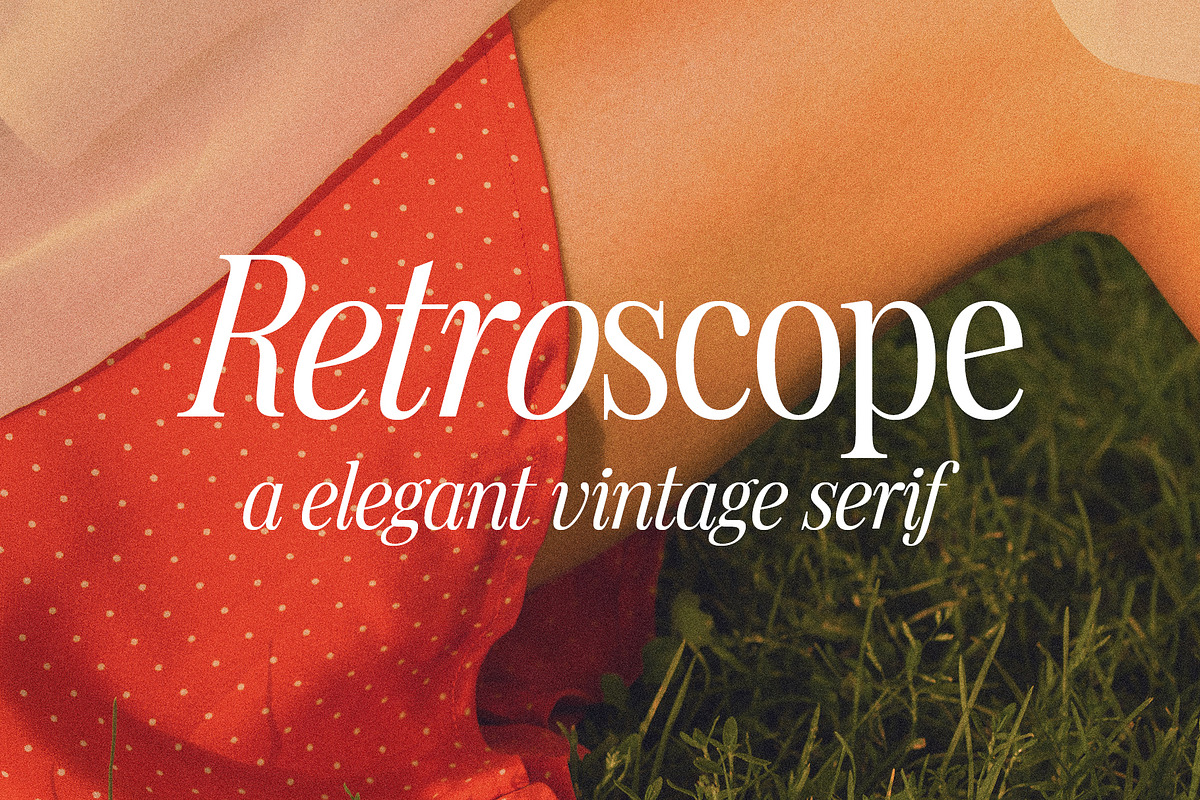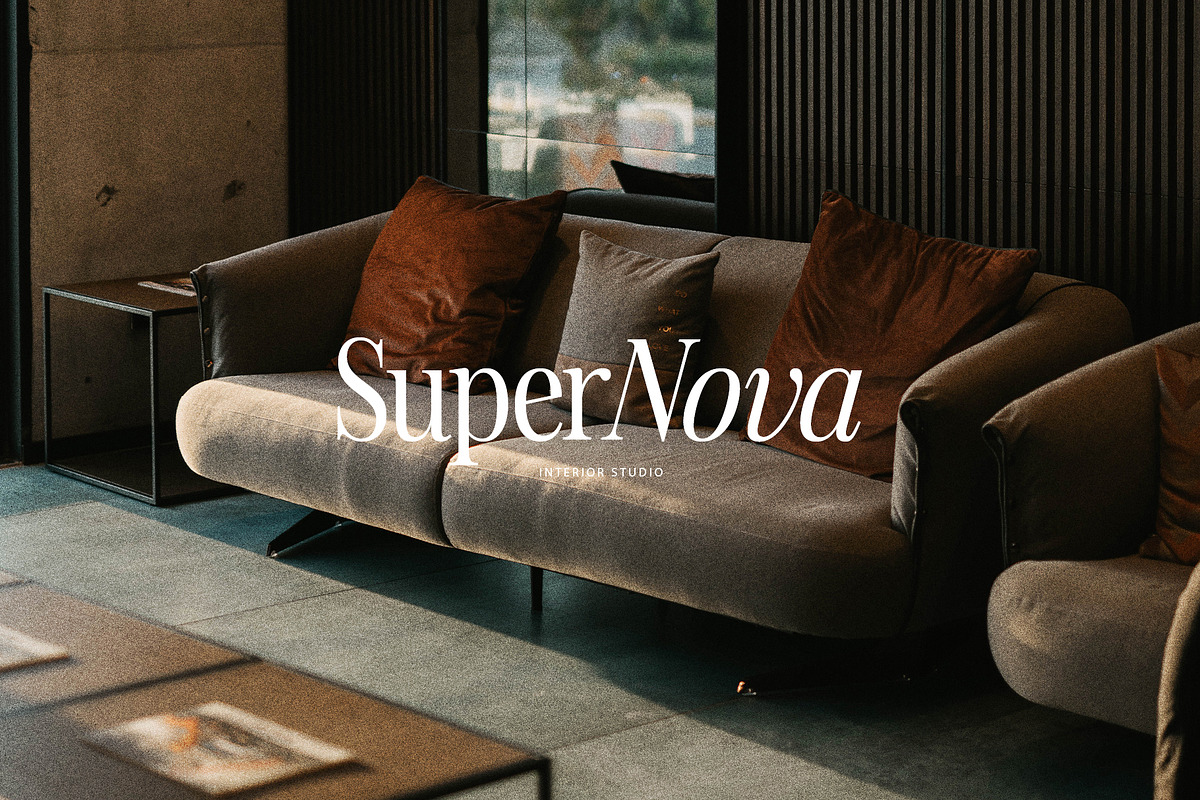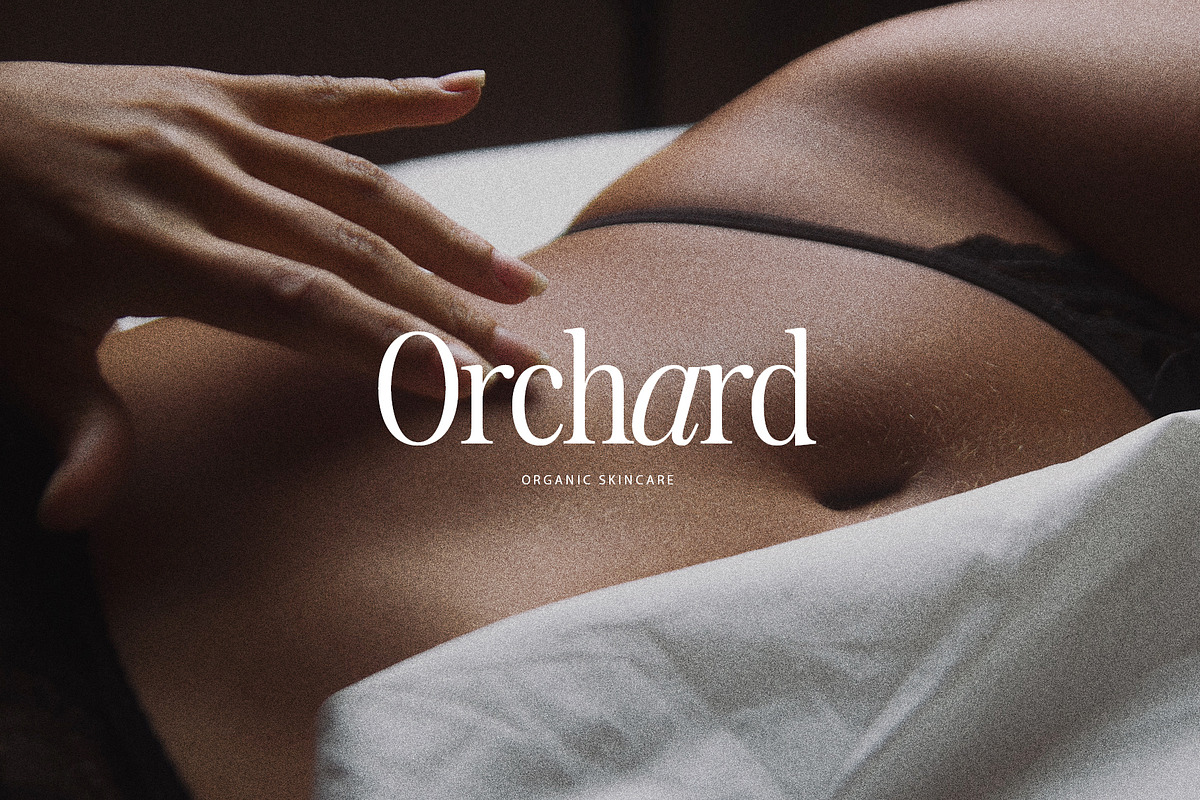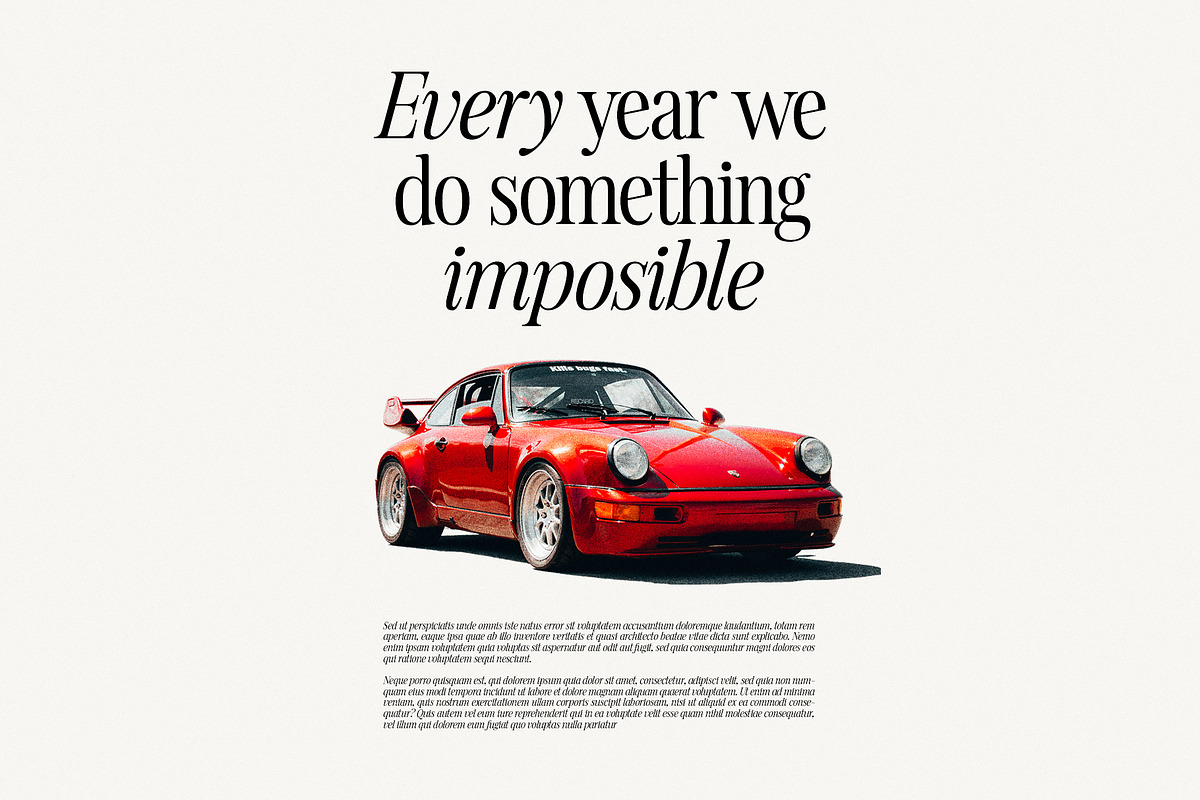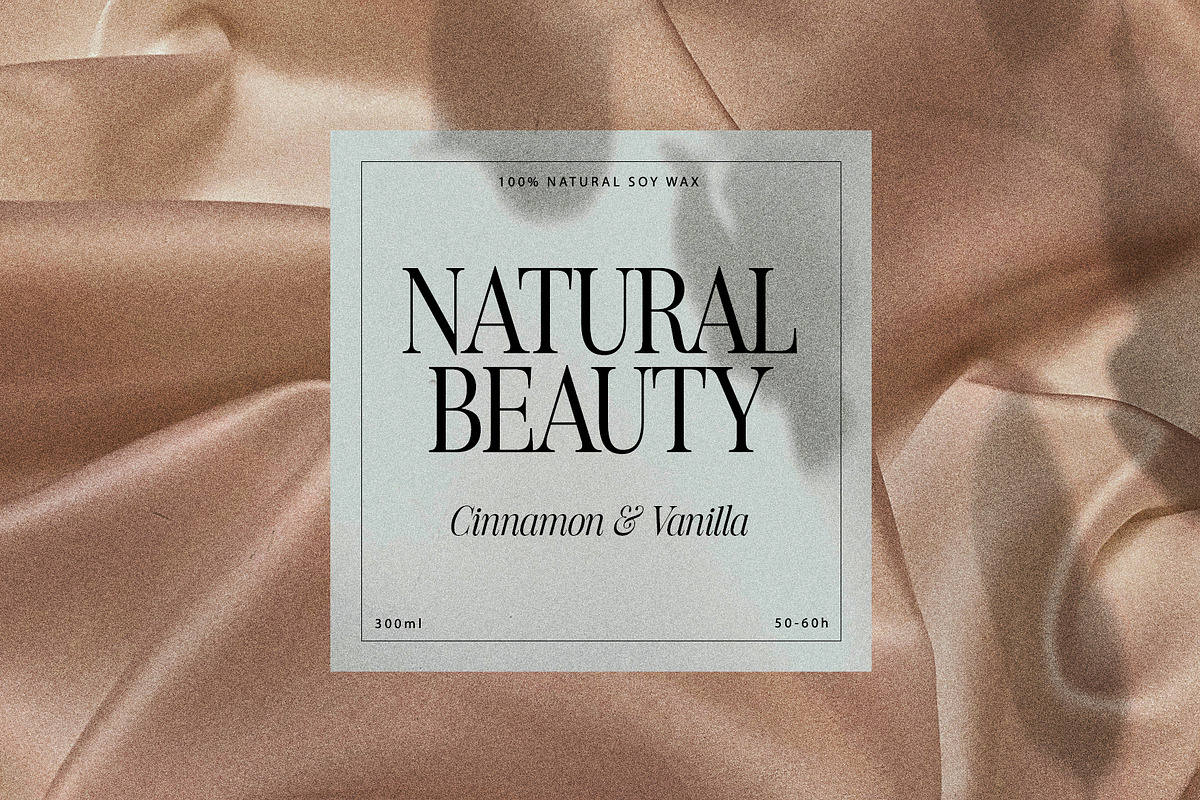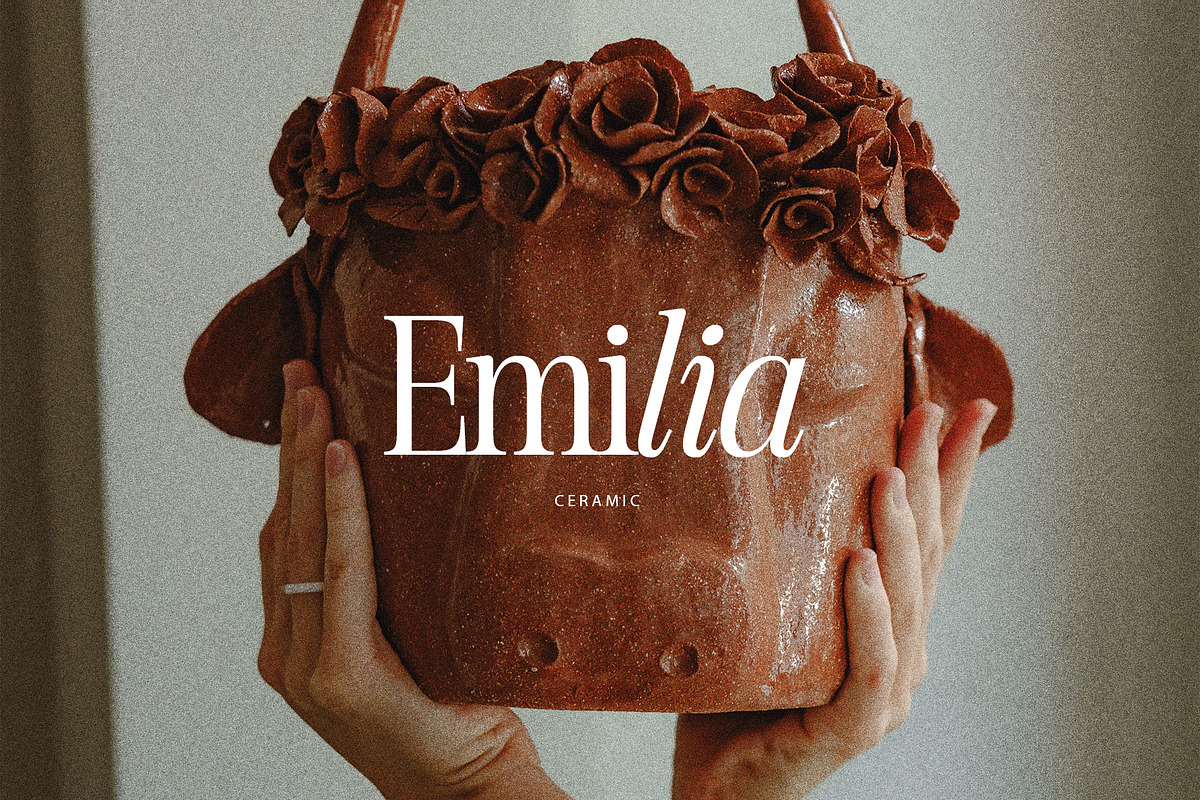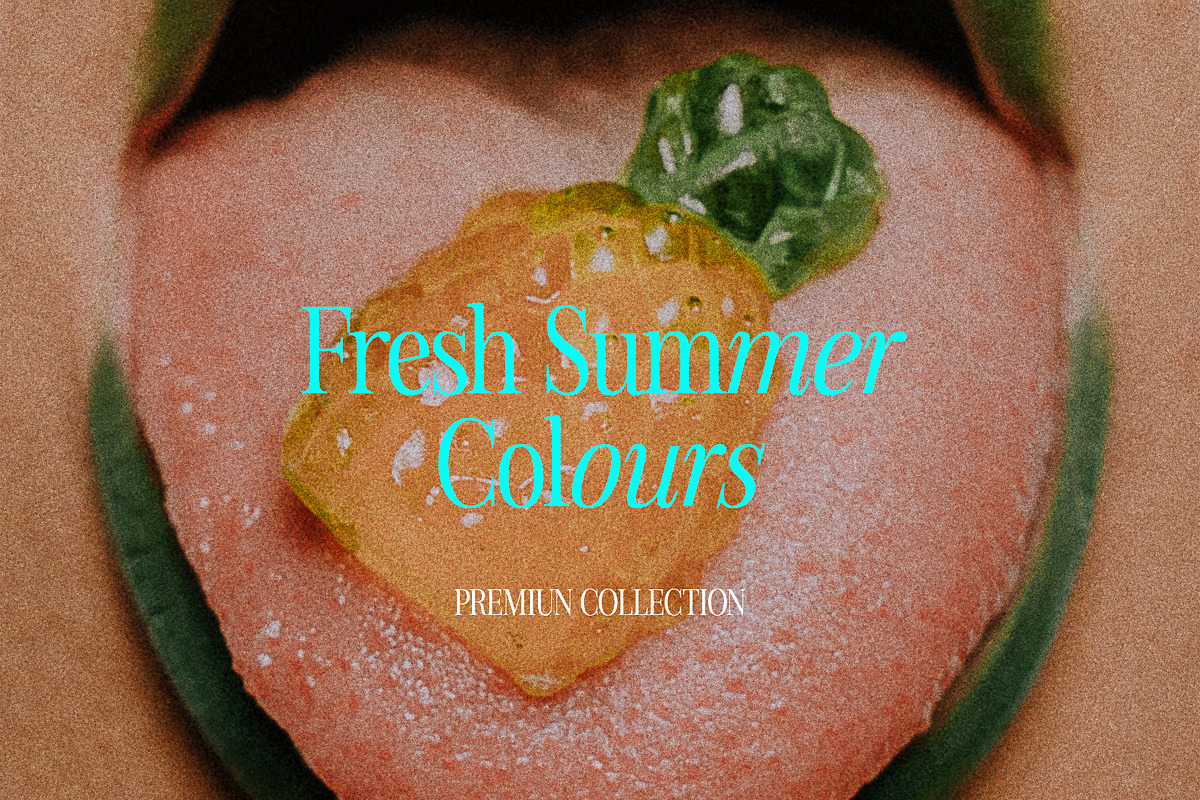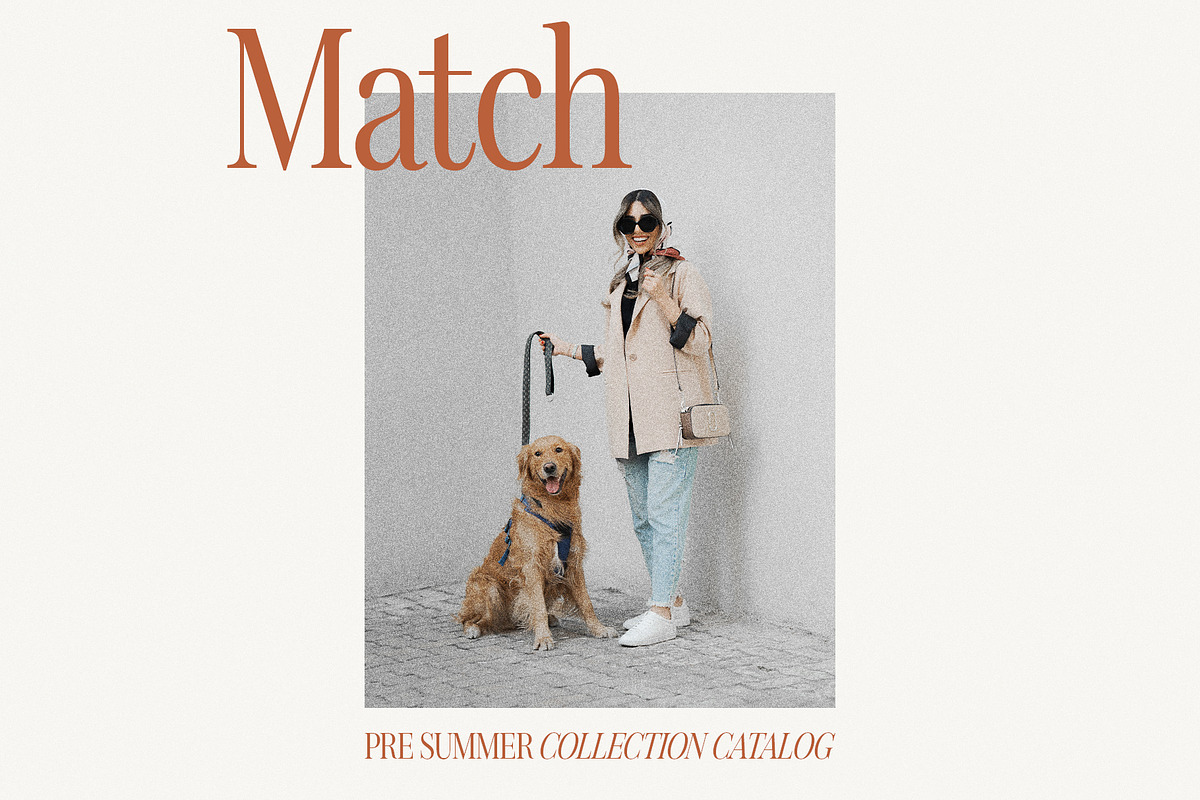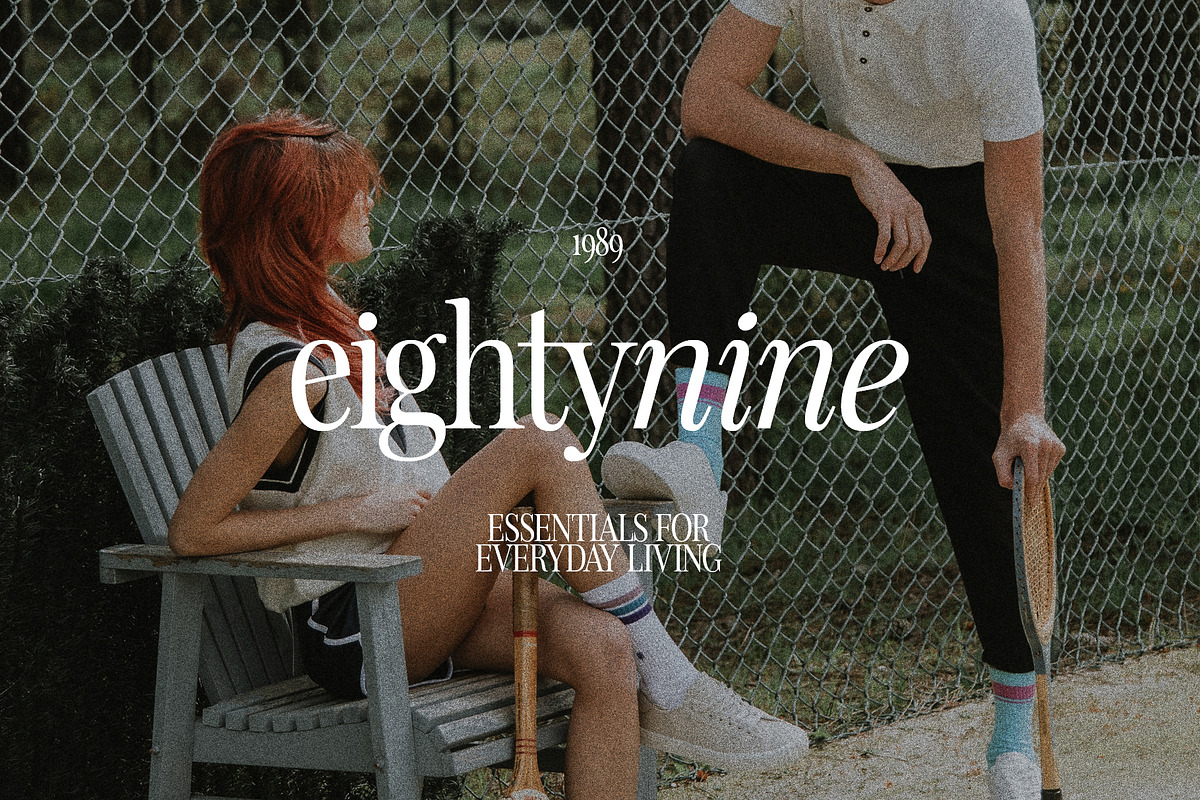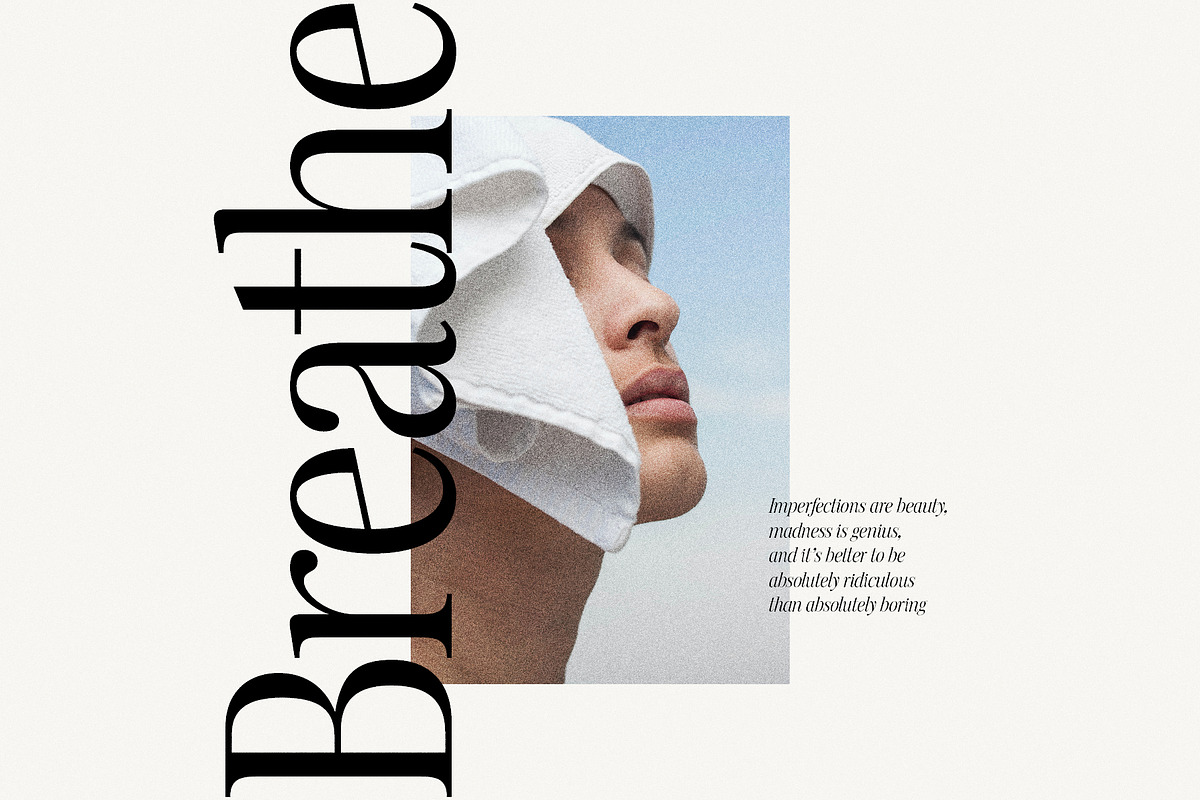
Retroscope / Vintage Modern Serif
Charming serif in retro style of the 80s and 90s with nostalgic notes! The dense structure will give an incredible retro vibe to your project.
Come in two versions, one of which is strict and straight, and the second is playful and inclined
Retroscope Font Features:
- Full Set of standard alphabet and punctuation
- Language support: All European languages
- Multilingual Characters AÁĂÂÄÀĀĄÅÃÆBCĆČÇĊDÐĎĐEÉĚÊËĖÈĒĘẼFGĞĢĠḠHĦIIJÍÎÏİÌĪĮĨJKĶLĹĽĻŁMNŃŇŅÑ OÓÔÖÒŐŌØÕŒPÞQRŔŘŖSŚŠŞȘẞTŤŢȚUÚÛÜÙŰŪŲŮŨVWẂŴẄẀXYÝŶŸỲỸZŹŽŻ aáăâäàāąåãæbcćčçċdðďđeéěêëėèēęẽfgğģġḡhħiıíîïìijīįĩjȷkķlĺľļłmnńňņñoóôöòőōøõœpþ qrŕřŗsśšşșßtťţțuúûüùűūųůũvwẃŵẅẁxyýŷÿỳỹzźžż